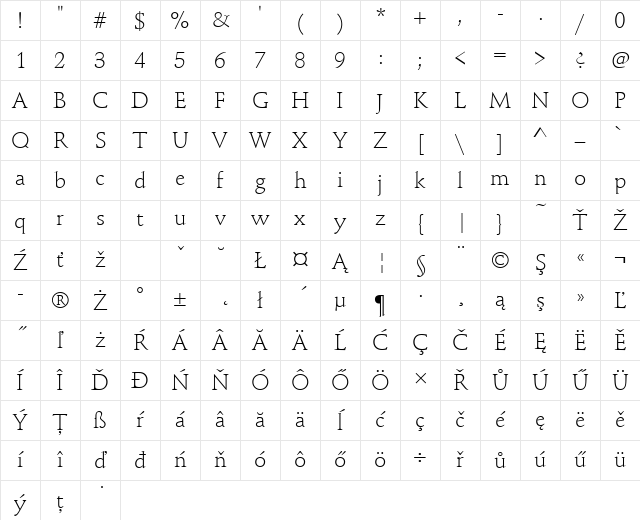
SchneidlerMedTEELig Regular
Complete SchneidlerMedTEELig Regular glyph index. Displaying only characters natively supported by SchneidlerMedTEELig Regular font.
Design Context for SchneidlerMedTEELig
SchneidlerMedTEELig is a composed and adaptable typeface that performs quietly and consistently across a wide range of design contexts.